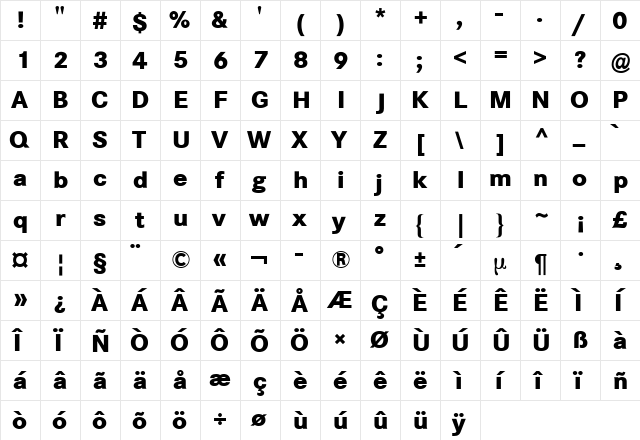
Corporate S BQ Bold Font Preview
Corporate S BQ Bold
Corporate S BQ Bold Font Details
Design Context for Corporate S BQ Typeface
Corporate S BQ is a composed and adaptable typeface that performs quietly and consistently across a wide range of design contexts. Its bold stroke weight gives it real presence on the page.